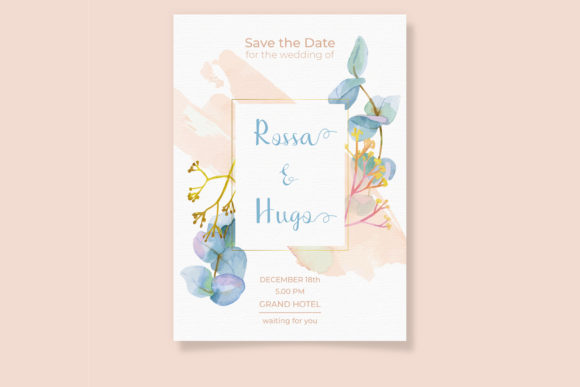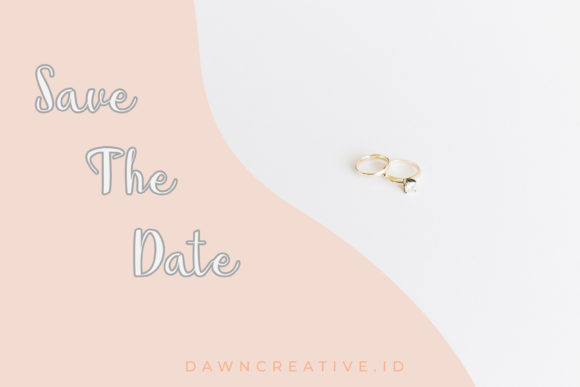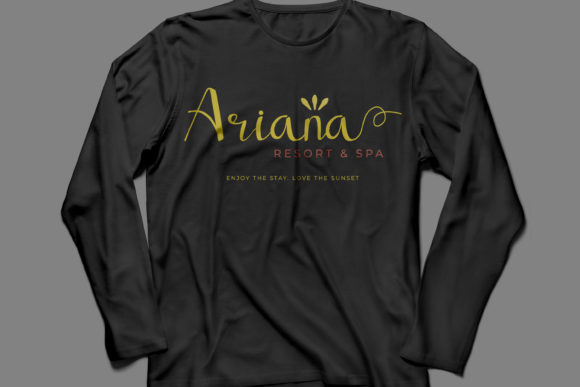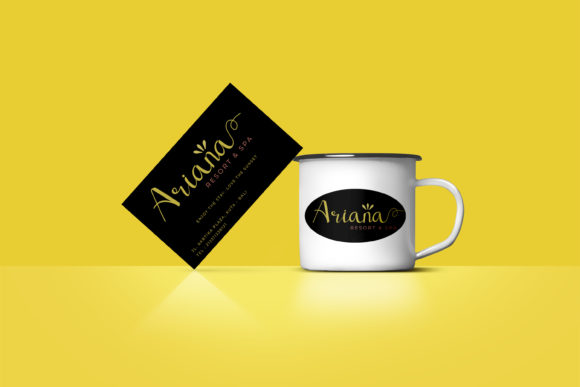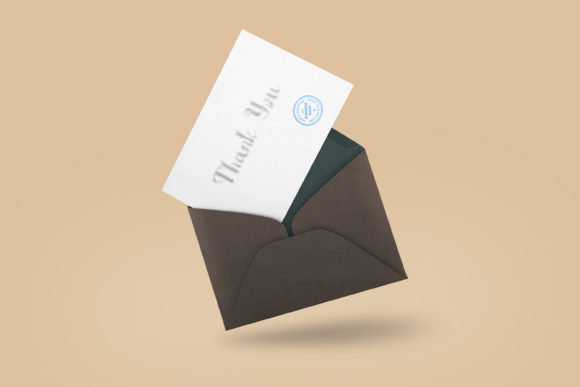
HomeScript FontsAlchemilla Font Script Fonts Alchemilla Font FacebookXPinterestWhatsApp Alchemilla Font Poster 2 Alchemilla Font Poster 3 Alchemilla Font Poster 4 Alchemilla Font Poster 5 Alchemilla Font Poster 6 About Alchemilla Font Alchemilla is an elegant and sweet script that evokes the feel of spring. DOWNLOAD ON CREATIVE FABRICAThis font is sold and delivered by Creative Fabrica. Font Canyon may earn a commission if you buy through this link. People also explored Mistery Zero Font Helmyani Font Masters Quest Font Sahanaya Script Font Willy and Willona Font The Restight Script Font Ink Bleed Font Hello Stockholm Font Birdwatch Luxury Modern Calligraphy Font 308 0 TagsAlchemilla Font Previous articleSignation FontNext articleGrindvilles Duo Font LEAVE A REPLY Cancel reply Comment: Please enter your comment! Name:* Please enter your name here Email:* You have entered an incorrect email address! Please enter your email address here Website: Save my name, email, and website in this browser for the next time I comment. Personal Use Free Love Ya Personal Use Free Read more about this font The Brighton Personal Use Free Read more about this font Alista Font Personal Use Free Read more about this font Sunbright Font Personal Use Free Read more about this font BLOG To increase your work productivity, choose the most readable fonts. In today's fast-paced work environment, where digital communication and information consumption are integral to our daily routines, the choice of fonts can significantly impact... 5 Fonts That Will Dominate Design Trends in 2026 Elegant Wedding Invitation Fonts – Handwritten & Script Fonts Where to Buy American Fonts Online in 2024